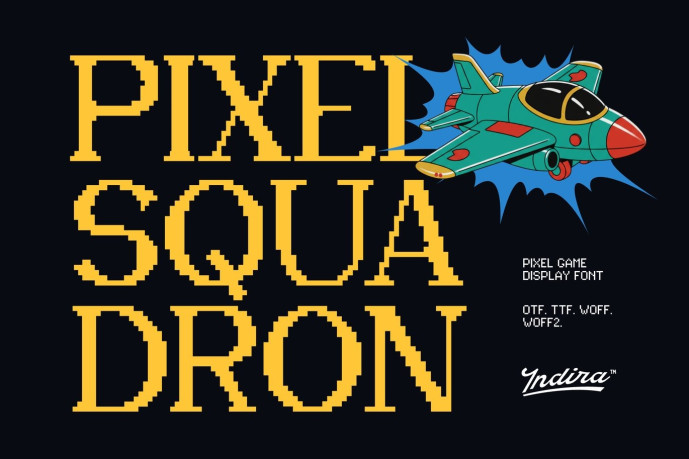
Pixel Squadron Font
Pixel Squadron Font is a pixel typeface that combines the retro energy of arcades with a bold and adventurous display style. Inspired by classic game graphics, the Y2K aesthetic, and early digital displays, this typeface features a robust bitmap structure with crisp pixel edges that create a distinctive and dynamic look. Its nostalgic yet modern feel makes it an ideal tool for capturing the spirit of vintage video games while remaining in tune with today’s creative trends.
Designed for game titles, game graphics, tech branding, and digital projects, Pixel Squadron ensures a powerful presence regardless of the screen use. The typeface works perfectly for arcade themes, user interface design, posters, and coding-inspired visuals that require a clean yet expressive pixel style. Whether you’re creating a retro game concept or a futuristic gaming brand, Pixel Squadron adds a bold and captivating visual impact to your design.